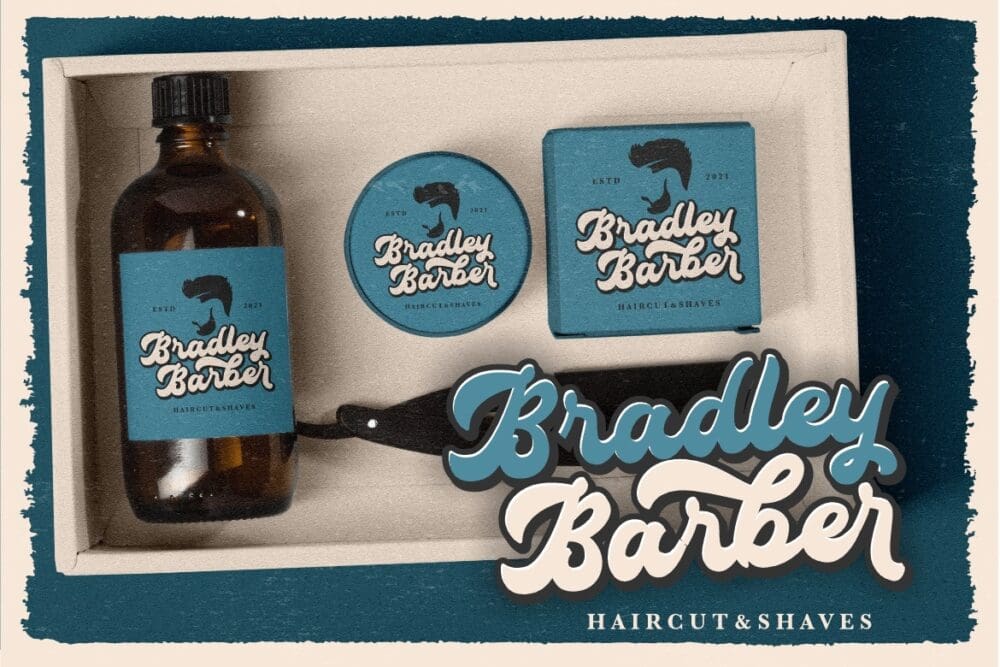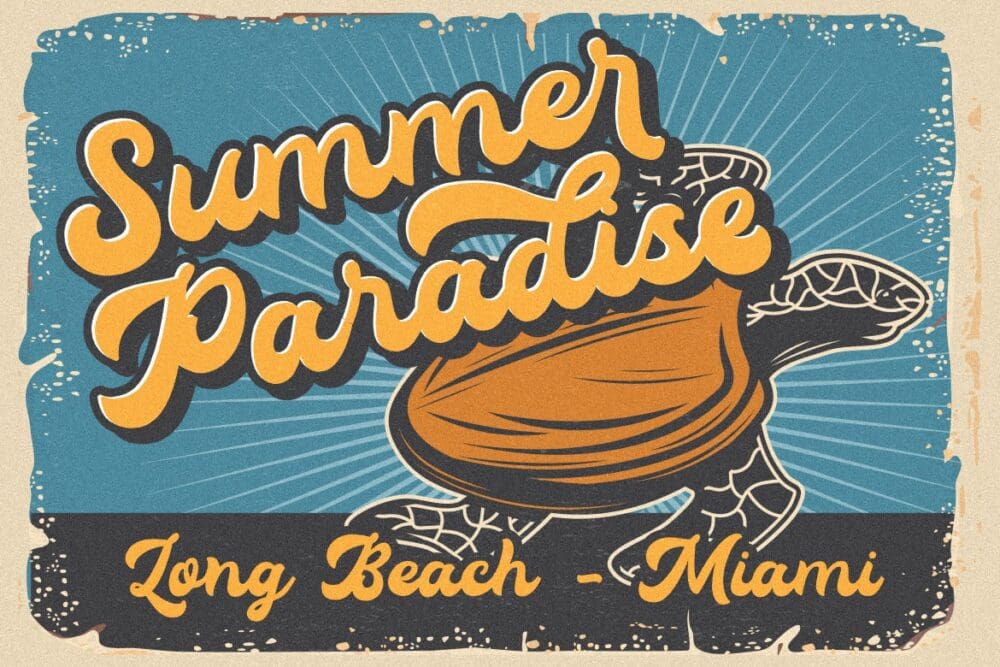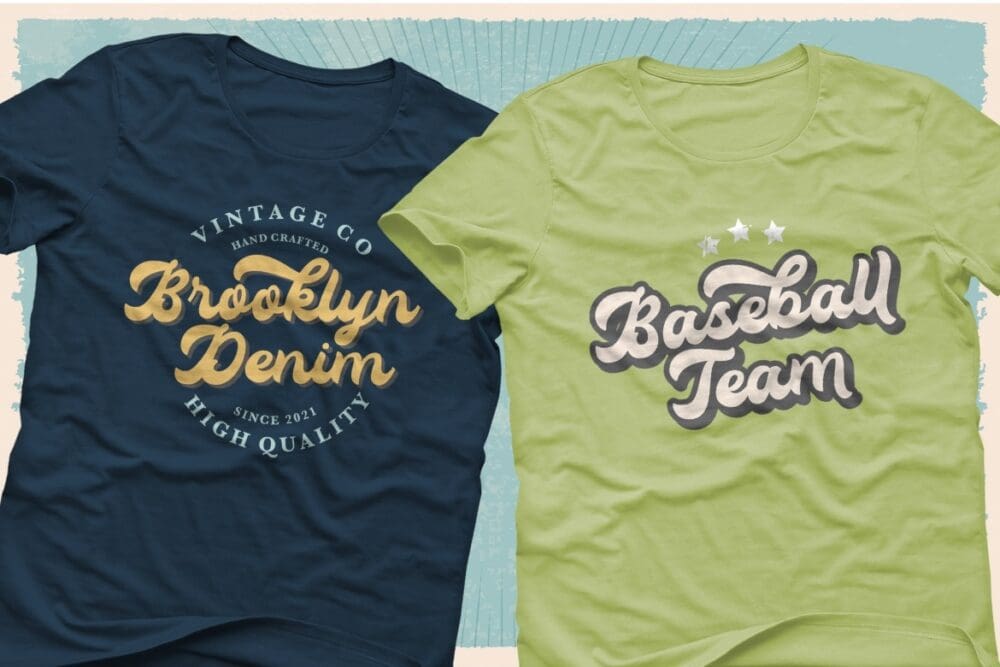
Klassik Retro Bold Script Font
Klassik Retro Bold Script Font with made inspired by retro design poster and perfect for your vintage project. Klassik Style is perfect for branding projects, logos, wedding designs, social media posts, photography, watermark, invitation, stationery, and more projects.